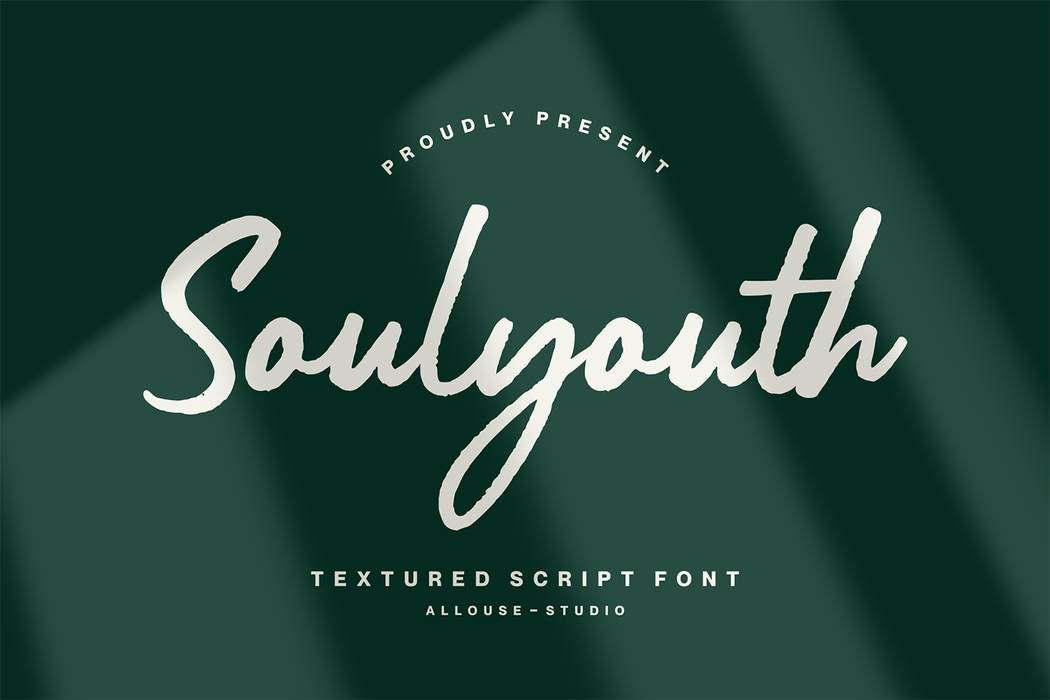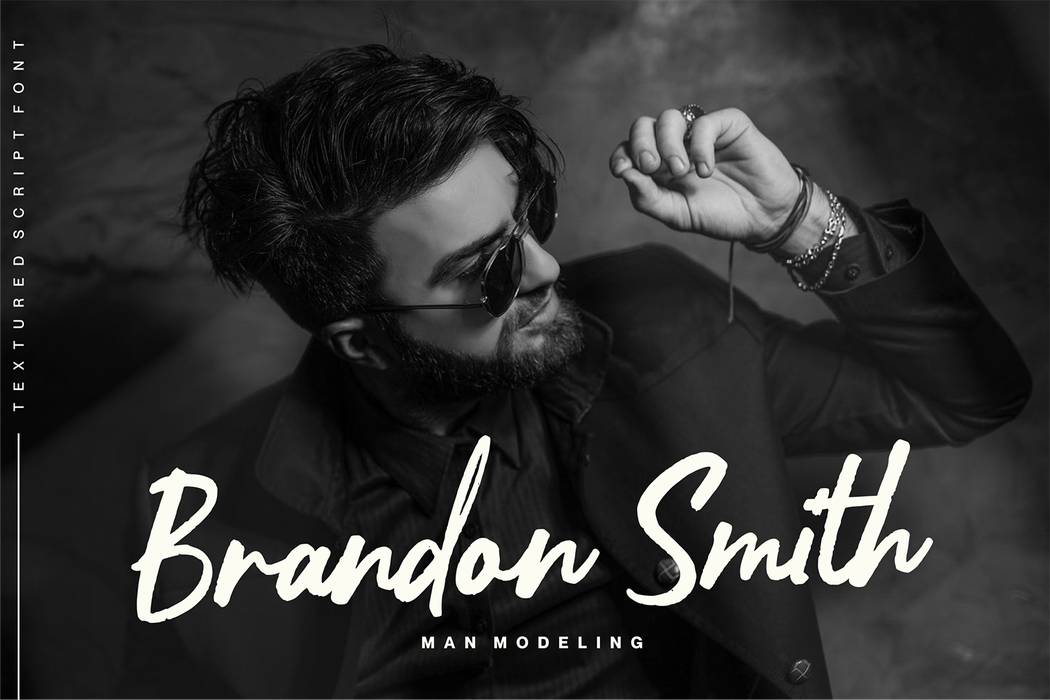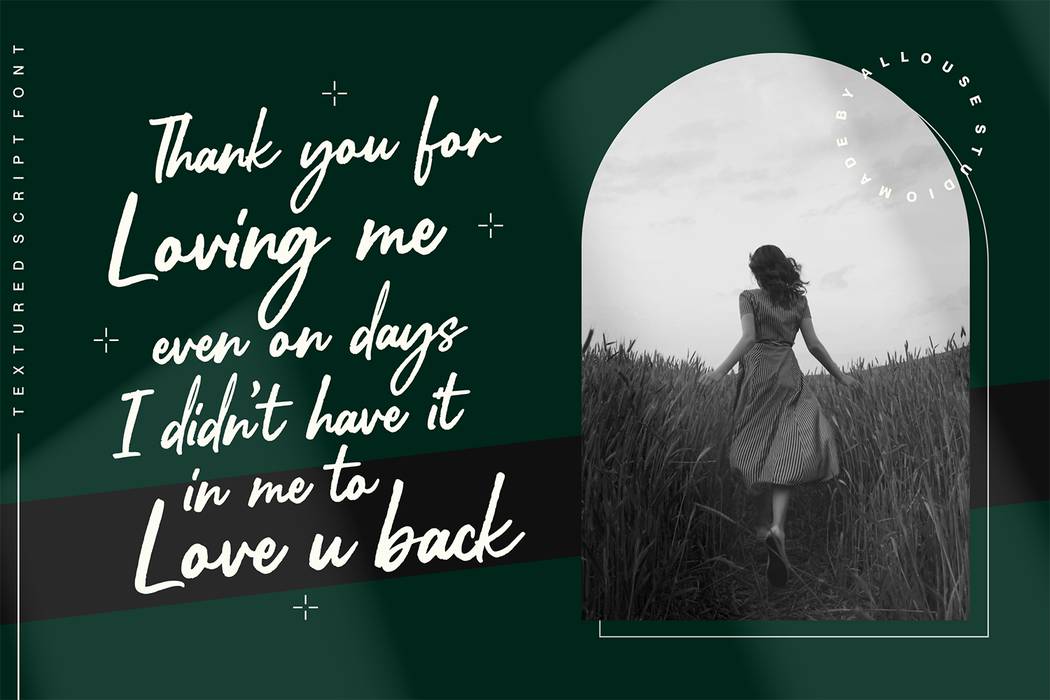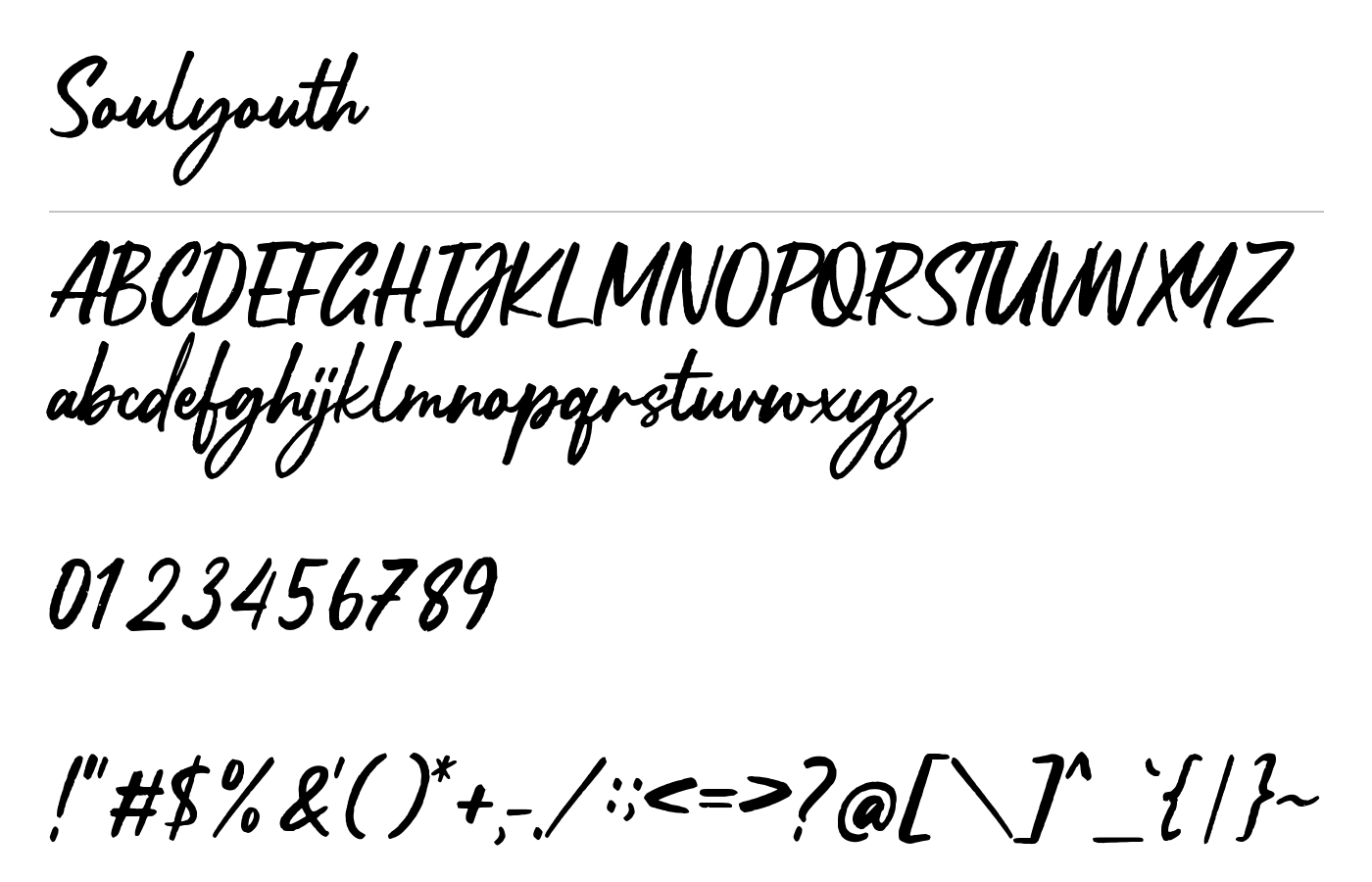
Soulyouth is a lively and modern script font that features a natural, handwritten feel with smooth, flowing strokes and medium contrast. Its casual yet stylish design makes it perfect for creative branding, invitations, and social media graphics, where a fresh and personable touch is desired. This font works well in headlines or logos that want to convey energy, youthfulness, and approachability.